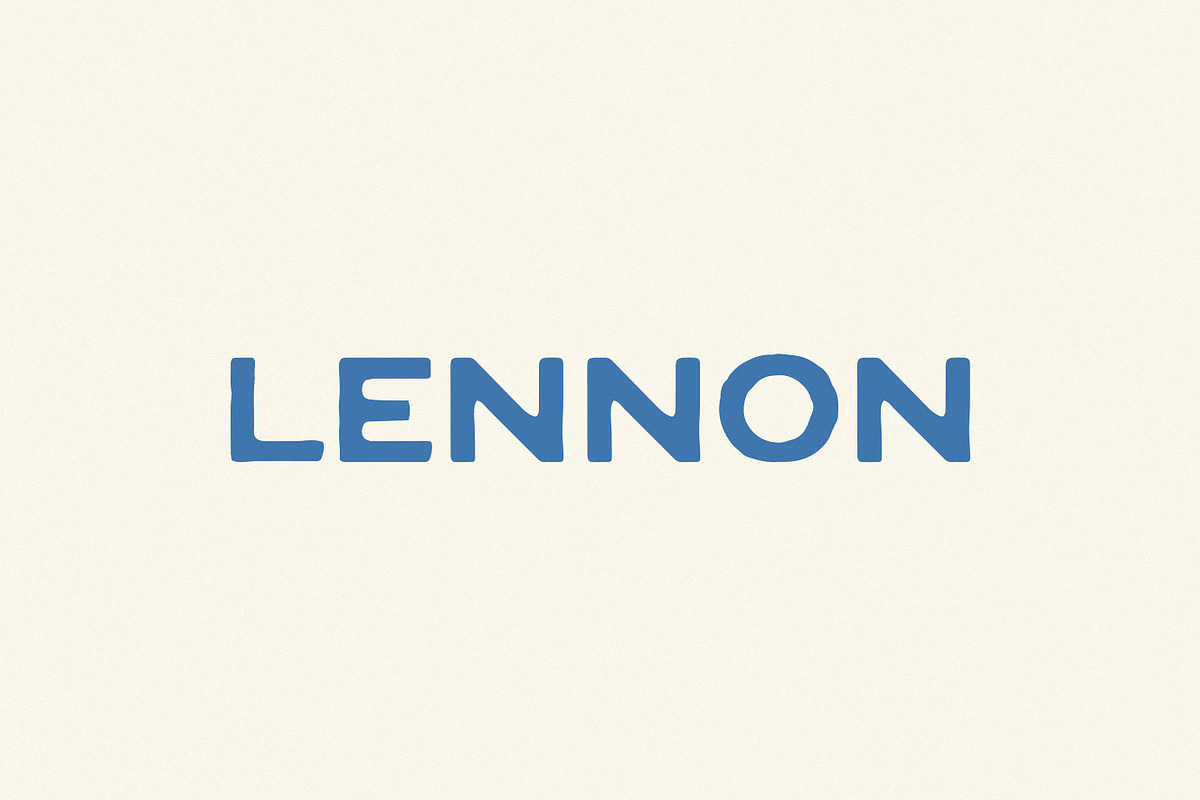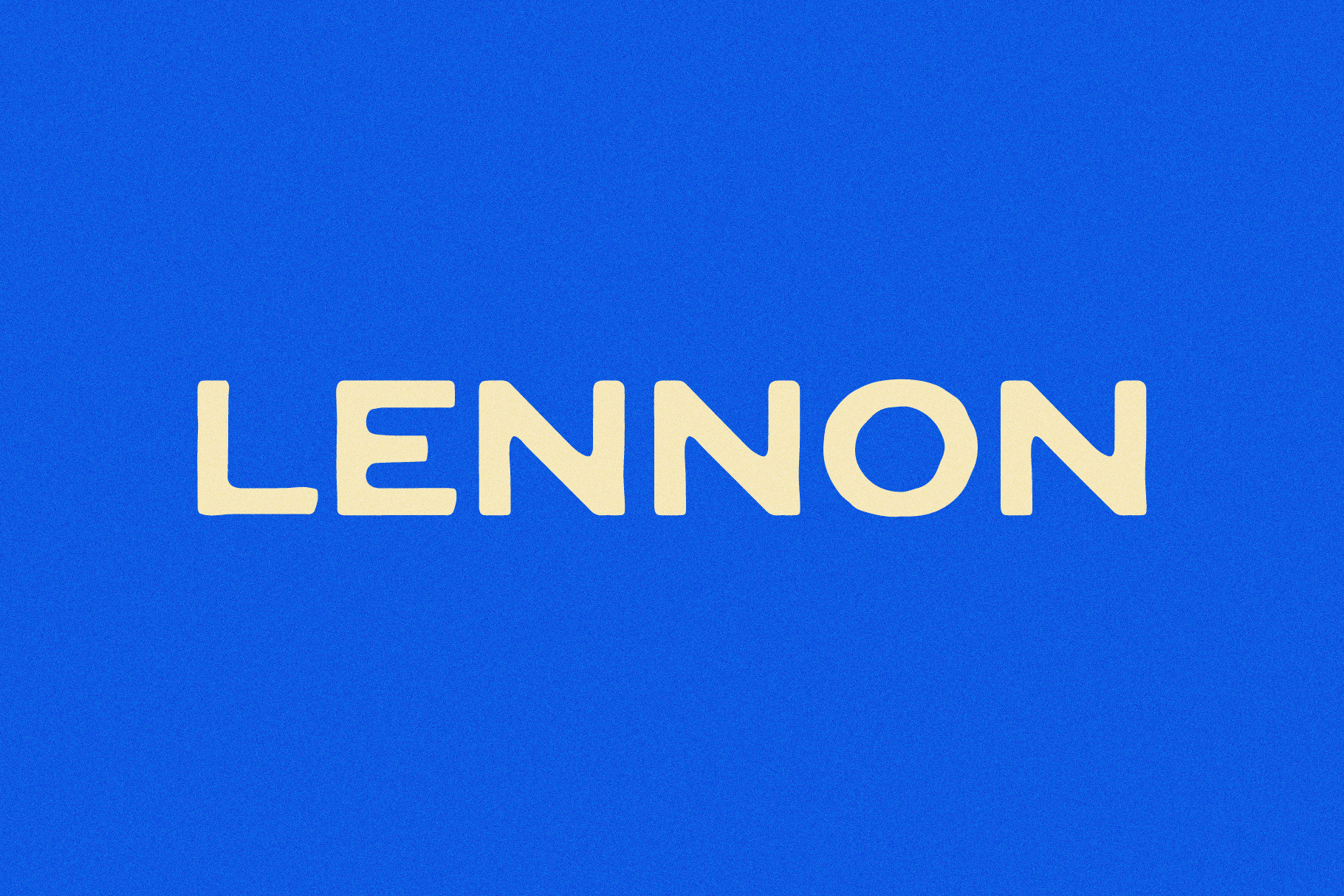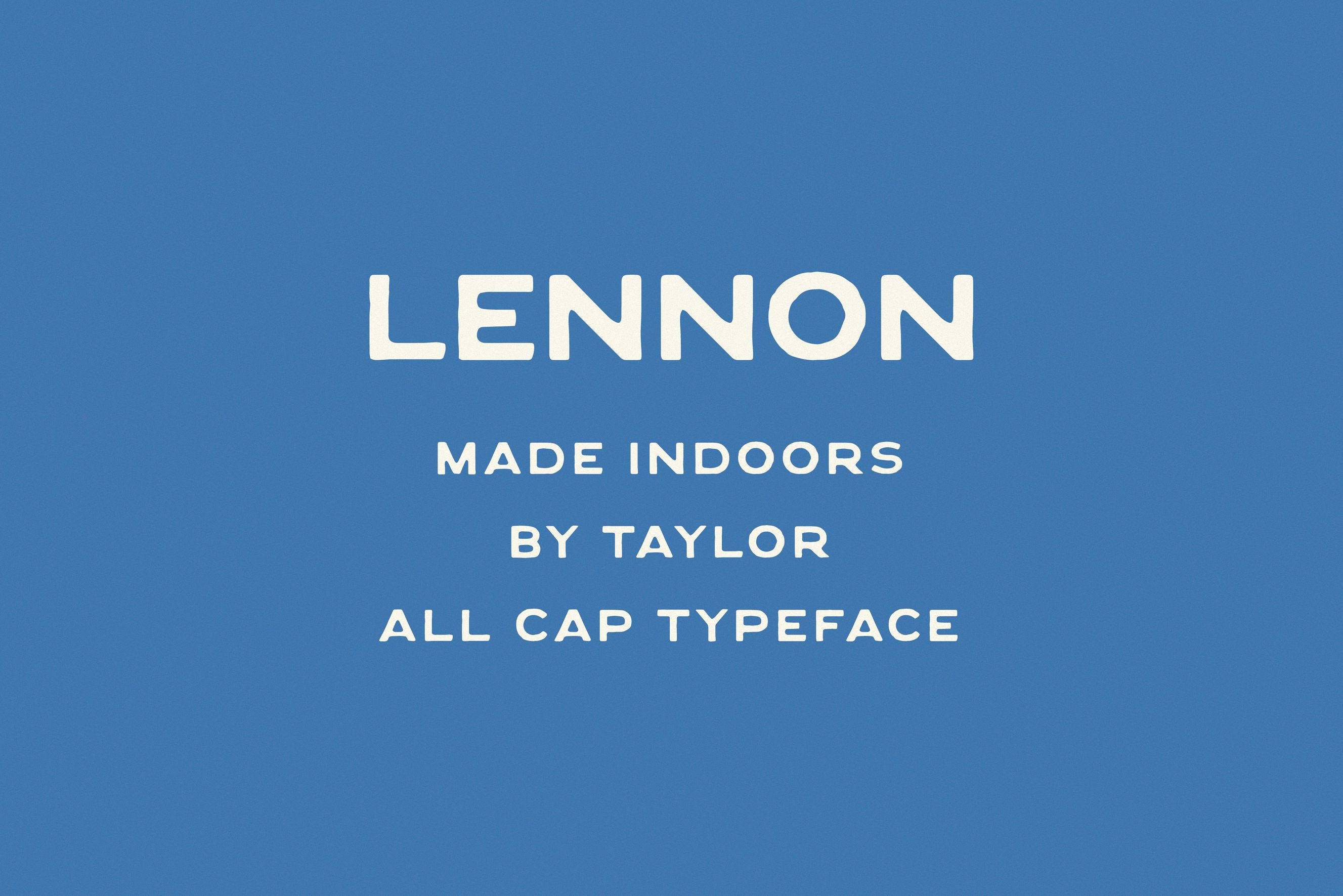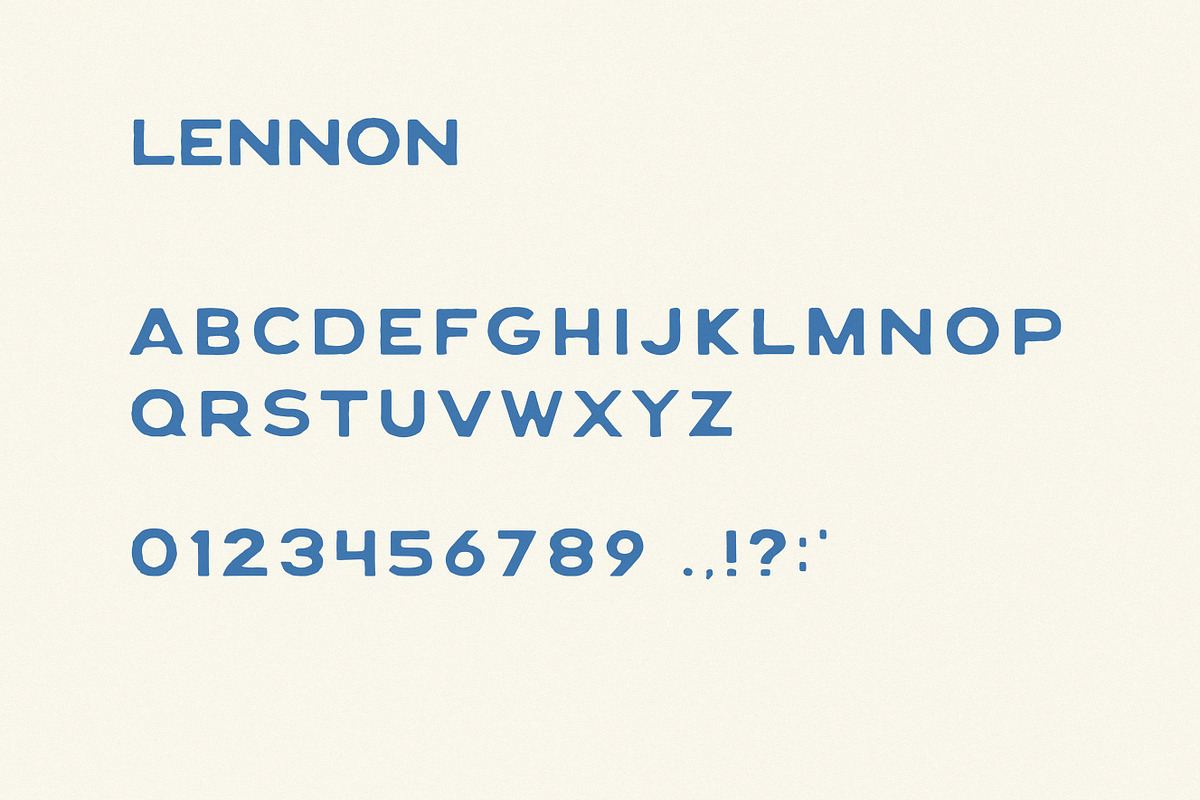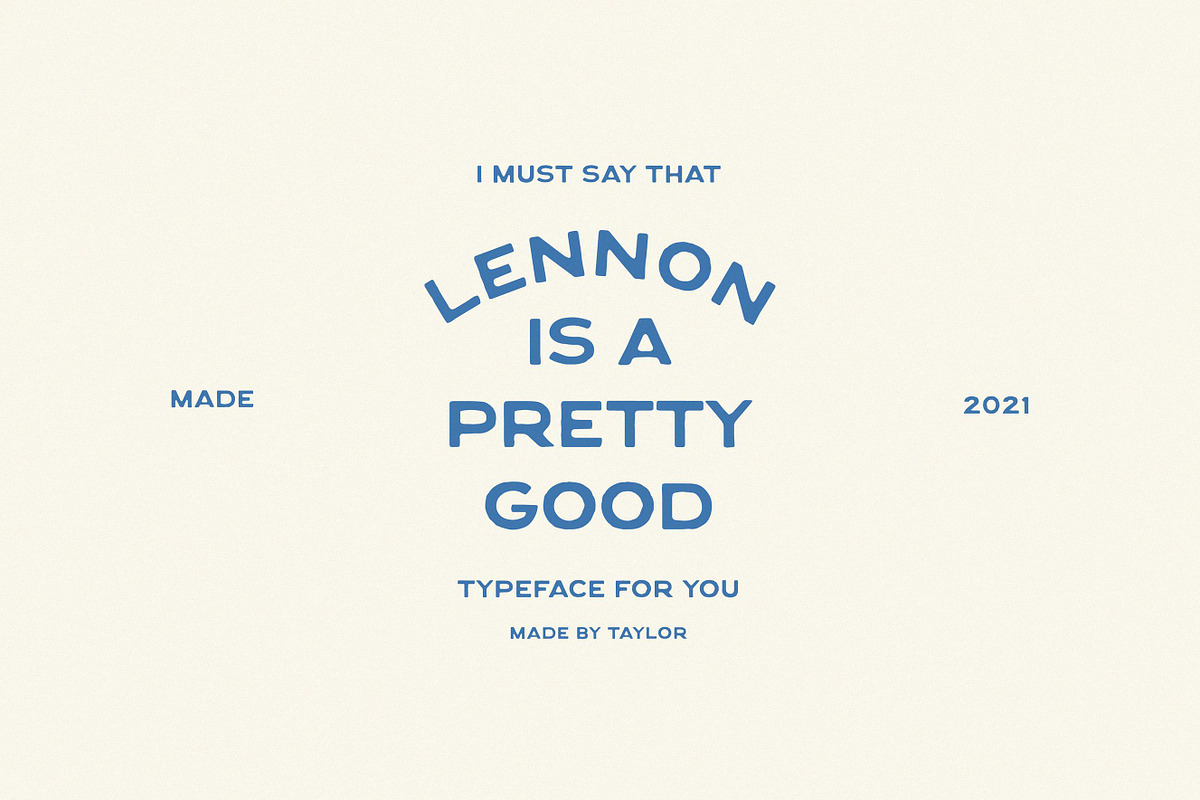
Lennon | A Vintage Display Font
Lennon is a present-day take on vintage packaging lettering.
Rounded edges, wide letterforms, and hand-drawn imperfections give it just enough charm without getting too cute. It’s one of the most popular fonts in the shop — probably because it’s easy to use and hard to mess up.
Extensive support for all Western European languages, including Icelandic and Welsh.